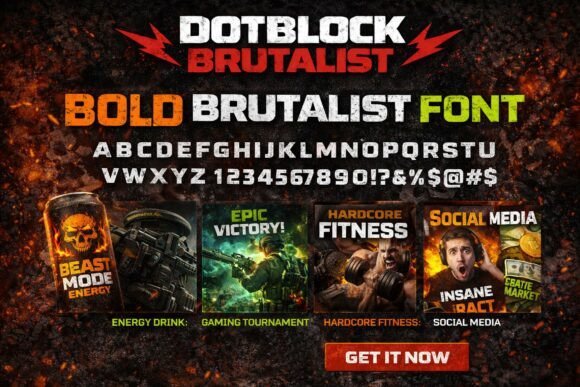
Unlocking the Power of Raw Industrial Aesthetics
Have you ever found yourself staring at a blank canvas, desperately searching for the perfect font to elevate your design project? The blank page stares back, taunting you with its emptiness. Suddenly, the sound of a welding torch sparks an idea – a bold, edgy font that embodies the raw energy of industrial landscapes. And that’s exactly what you’ll find in the Dot Block Brutalist Font.
This experimental display font is a game-changer for designers who crave a strong visual impact. With its heavy block shapes and subtle dot-texture detailing, the Dot Block Brutalist Font is perfect for branding, music posters, event promotions, packaging, and any project that demands attention. Whether you’re a seasoned pro or a design newbie, this font is a valuable addition to your toolkit, offering a unique blend of style and versatility that’s sure to leave a lasting impression.
Dot Block Brutalist Font Features
- Unique Characteristics: The Dot Block Brutalist Font features a distinctive brutalist aesthetic, characterized by bold lines, geometric shapes, and a monolinear structure.
Designer Review: Dot Block Brutalist Font
Overall, I’m quite pleased with the Dot Block Brutalist Font – it’s a solid addition to any designer’s toolkit. ✨
Here’s what works well:
- The font’s blocky, geometric aesthetic is perfect for modern designs, and it’s sure to make a statement.
- The font’s wide range of weights and styles offers plenty of flexibility for different design applications.
- The font is well-suited for headlines, titles, and other display text, where its bold, edgy feel can really shine.
- The font may not be the best choice for body text, where its blocky shape can be difficult to read in large quantities.
- The font’s lack of italics or obliques can make it difficult to create emphasis or hierarchy in text.
- The font may not be suitable for designs that require a more delicate or refined aesthetic.
Overall, I’d recommend the Dot Block Brutalist Font to designers who are looking for a bold, eye-catching font for their modern designs. With a little careful planning, it’s sure to be a great addition to any project.
The Dot Block Brutalist Font is ideal for creating bold, industrial designs. Use it for:
- Urban landscapes and cityscapes
- Industrial and architectural designs
- Graphic novels and comic books
- Brutalist-inspired posters and flyers
Remember to experiment with different font sizes, colors, and styles to get the most out of the Dot Block Brutalist Font.
Alternatives to Dot Block Brutalist Font
1. B612 Font
B612 Font is a sans-serif font with a geometric feel. It is ideal for use in digital products, such as apps, websites, and software. B612 Font is more rounded and friendly compared to Dot Block Brutalist Font, which is more angular and brutalist.
2. Inter Font
Inter Font is a modern sans-serif font designed for digital use. It is highly legible and works well in both small and large text sizes. Inter Font is more versatile than Dot Block Brutalist Font, which is specifically designed for a brutalist aesthetic.
Montseratt Font is a sans-serif font inspired by the urban environment of Buenos Aires. It is ideal for use in headlines and titles, and works well in both digital and print applications. Montserrat Font has a similar urban feel to Dot Block Brutalist Font, but is more refined and polished.
Open Sans Font is a popular sans-serif font that is highly legible and works well in both digital and print applications. It is ideal for use in body text and is highly customizable. Open Sans Font is more neutral and versatile than Dot Block Brutalist Font, which has a strong brutalist aesthetic.